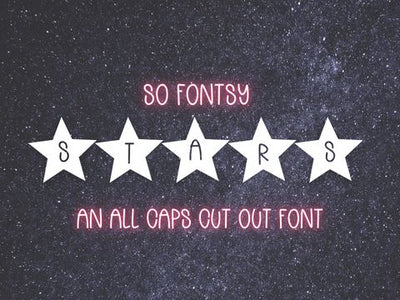
All-Caps Starry Font TTF for Crafting Projects
Elevate your designs with this unique all-caps font, where each letter is beautifully cut out of stars. Perfect for adding a touch of whimsy to your projects, this TTF font is ideal for Cricut, Silhouette, and other crafting software. Whether you're designing custom apparel, invitations, or posters, this starry font is sure to make your creations shine. Let your creativity sparkle with this celestial-inspired font!